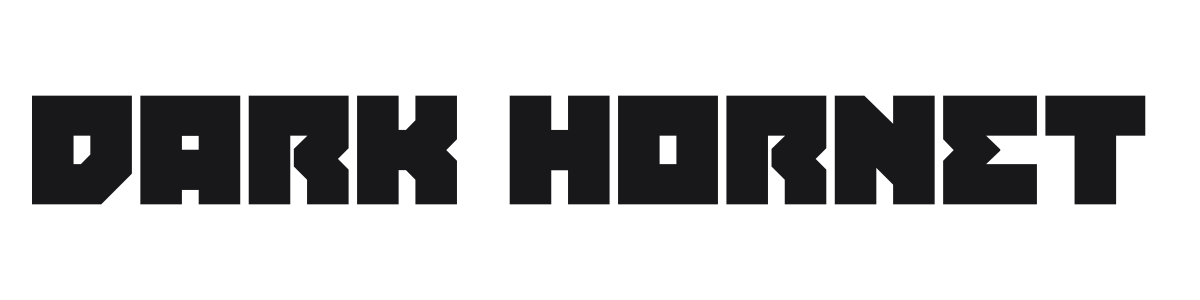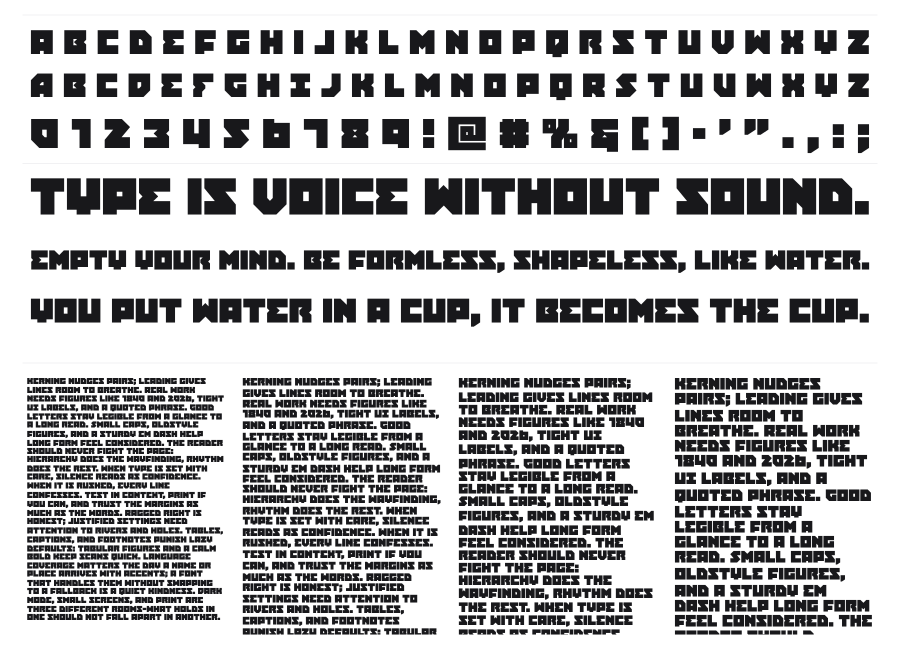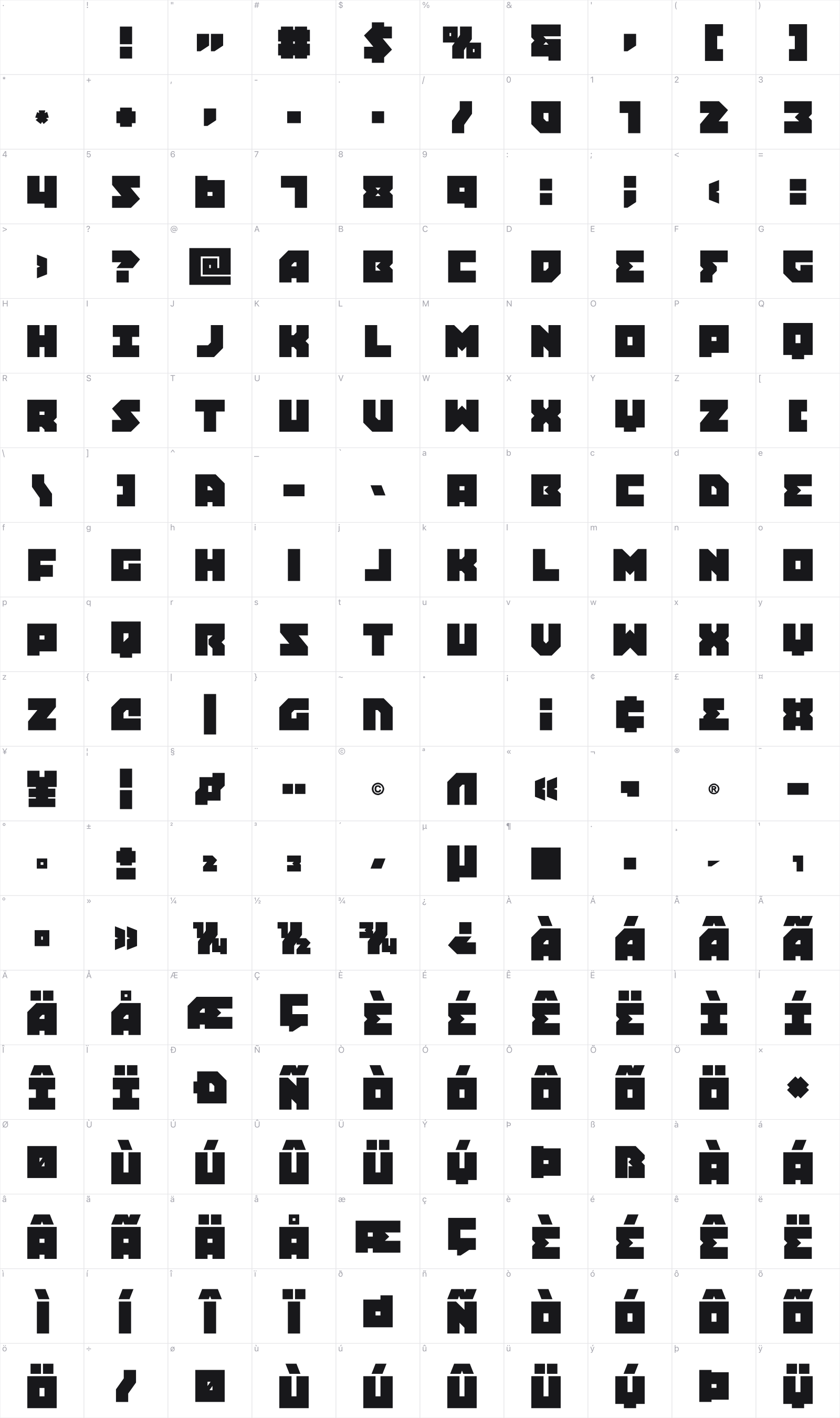
Dark Hornet
Dark Hornet is an ultra-bold square techno display face built from thick rectangular strokes with sharp angular notches at key junctions. The extreme weight and condensed geometry give it an imposing, almost armored presence that commands attention at headline sizes. It comes in 22 variants including 3D, halftone, gradient, and laser treatments.